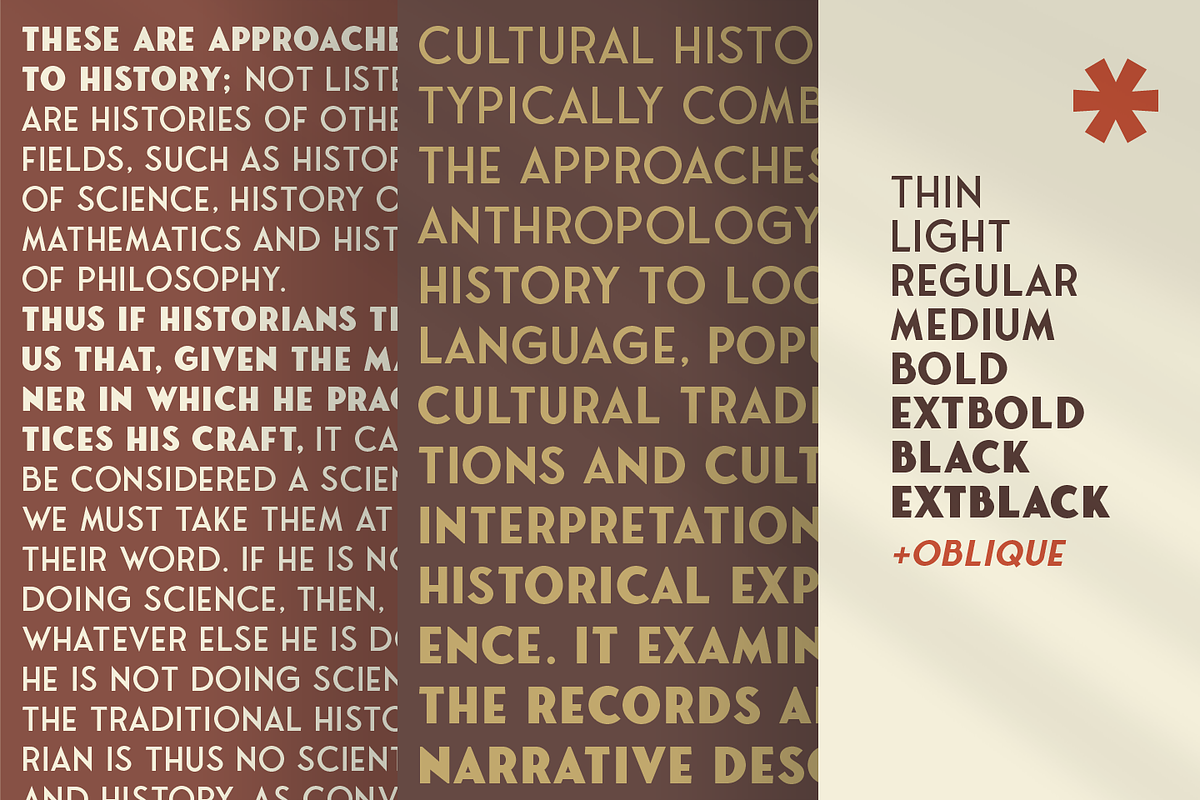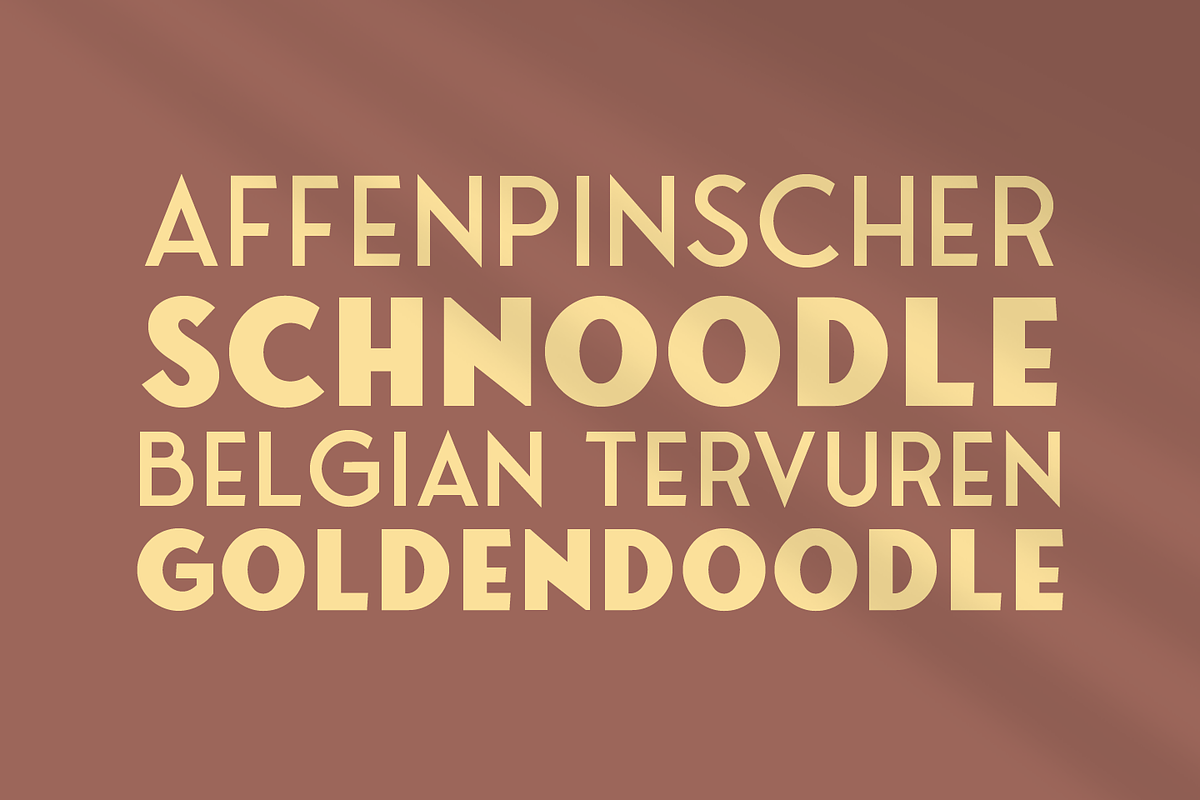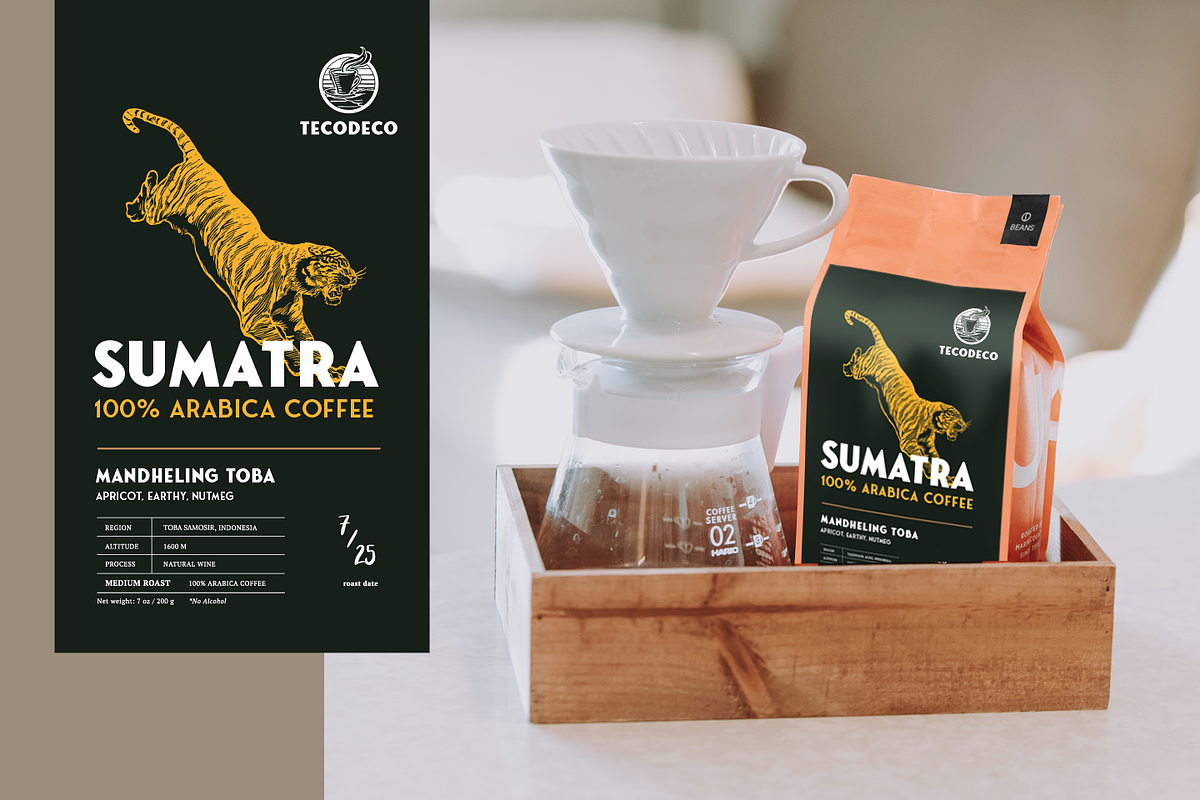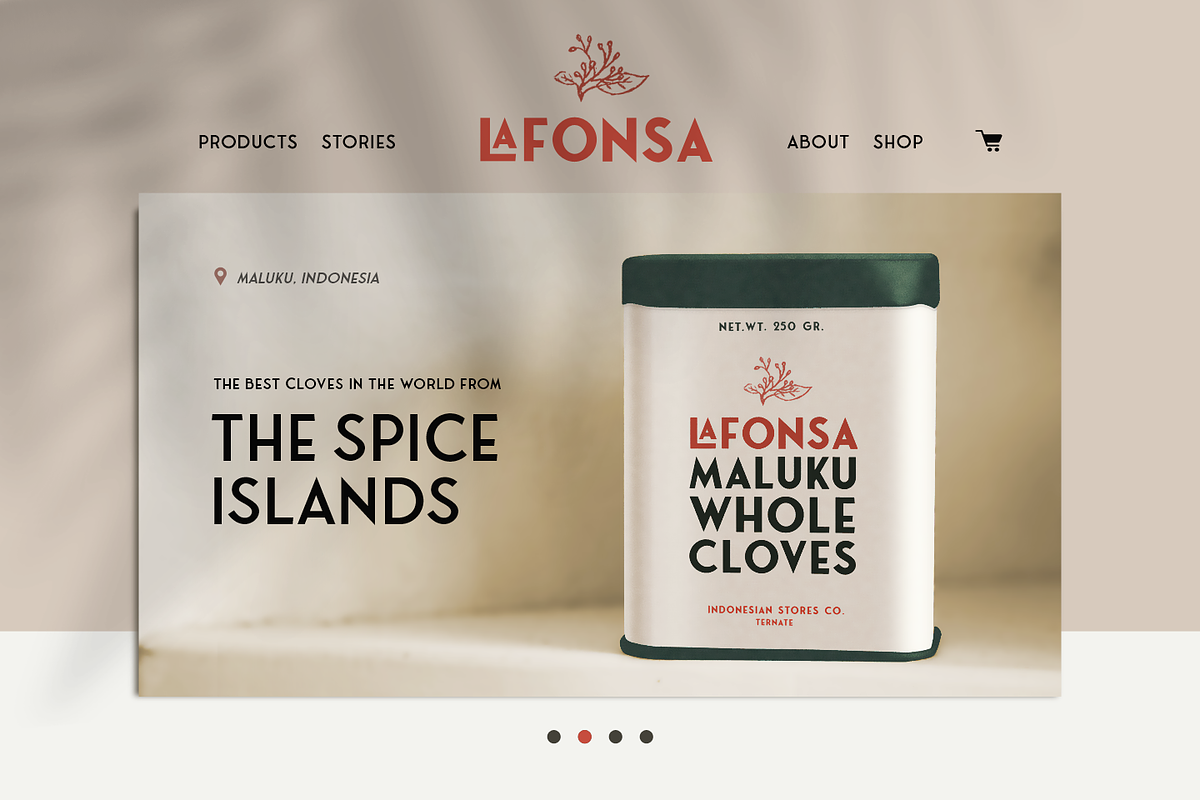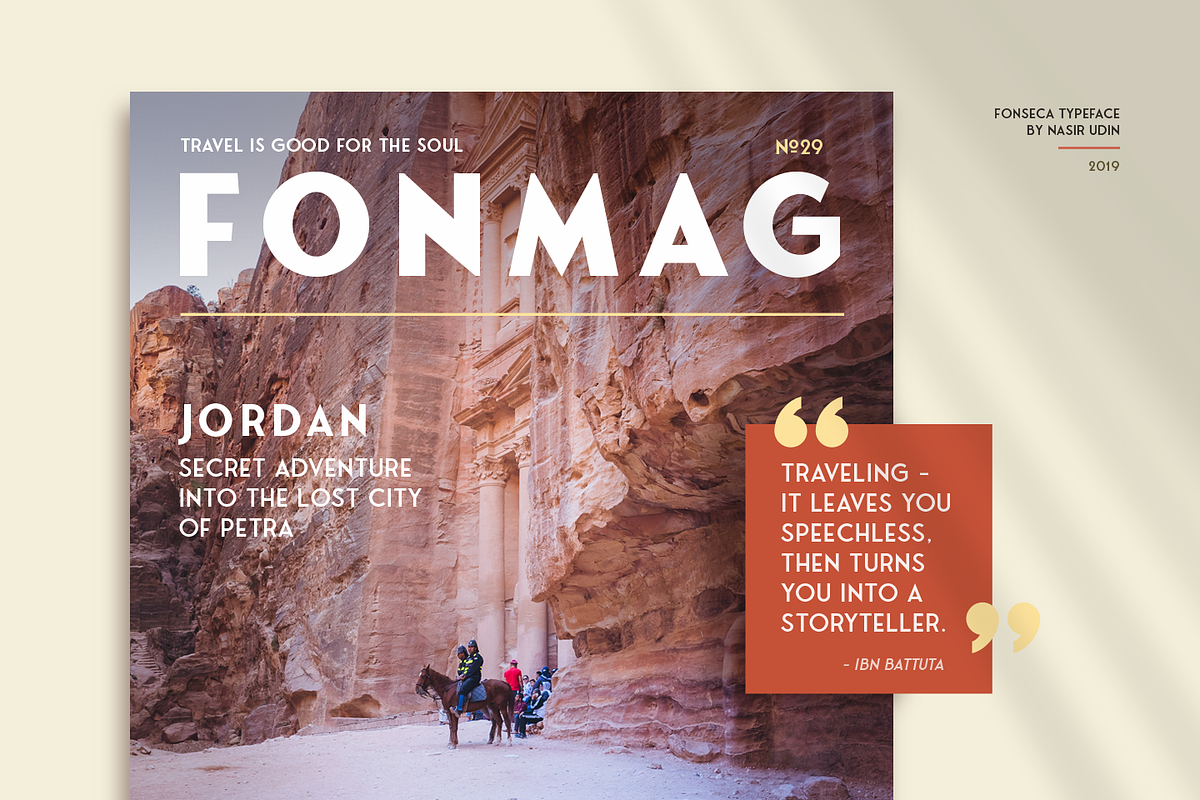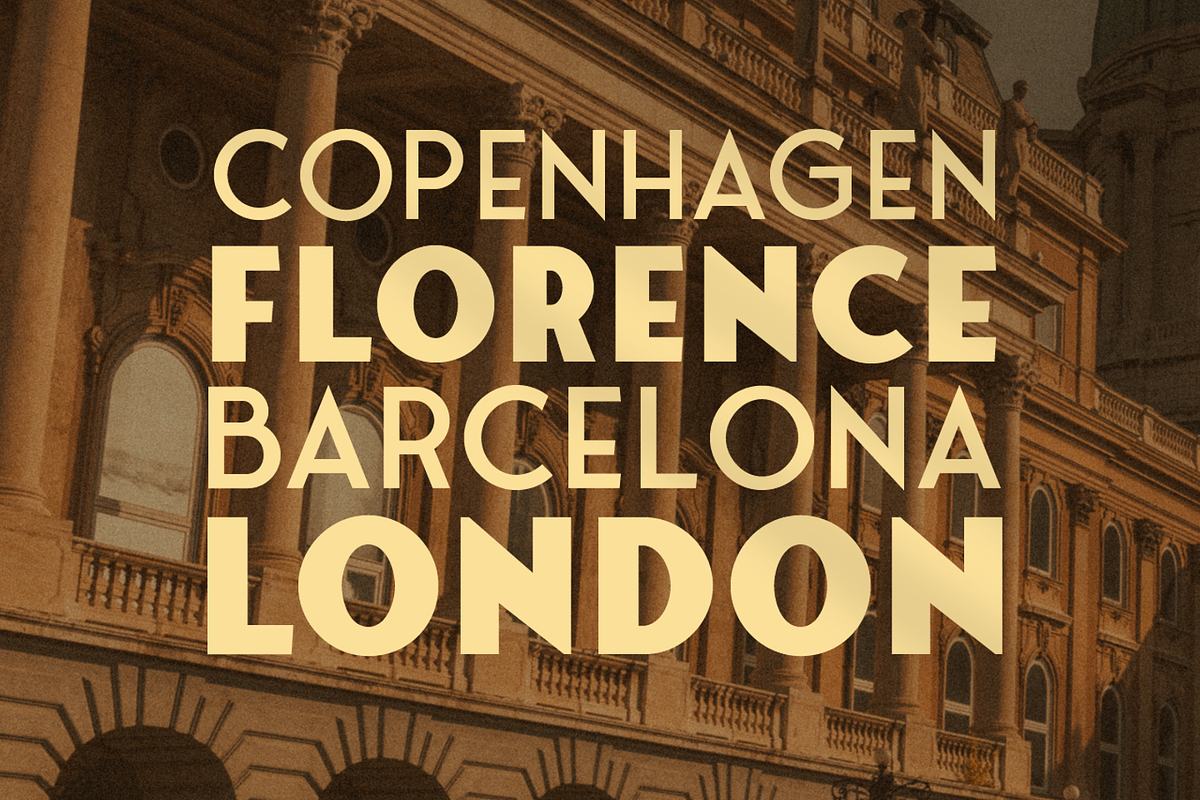
Fonseca ver.02 - 16 Fonts
This Fonseca ver.02 is a new and extended family version of my previous Fonseca font (that only has 2 weights).
Fonseca Thin + Thin Oblique
Fonseca Light + Light Oblique
Fonseca Regular + Oblique
Fonseca Medium + Medium Oblique
Fonseca Bold + Bold Oblique
Fonseca ExtraBold + ExtraBold Oblique
Fonseca Black + Black Oblique
Fonseca ExtraBlack + ExtraBlack Oblique
Fonseca Family is a modern sans serif inspired by art deco and typography poster in early 20th century. The key of this all caps family is simple straight geometric forms and modernized letterforms.
This display family is perfect for headlines, posters, logos, branding projects, magazines, and packaging. The modernized retro-look make this family great to presents any contents related to travel, history & culture in the present/modern way.
16 fonts 8 weights with italics
Stylistic alternates for letter ‘O’ and ‘E’
Special ligatures LA LE LI LO LU